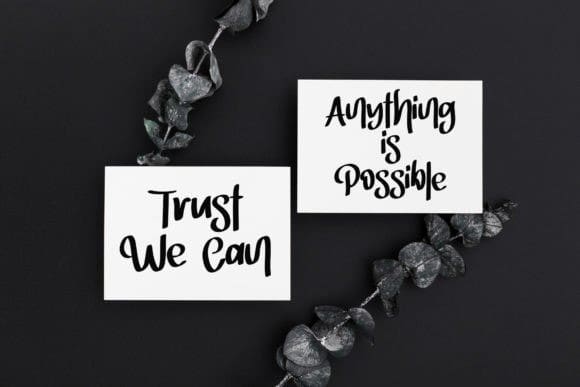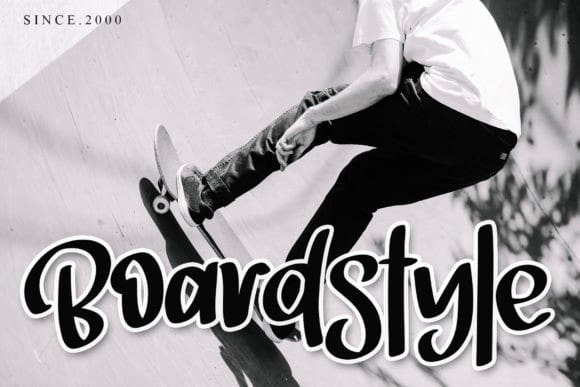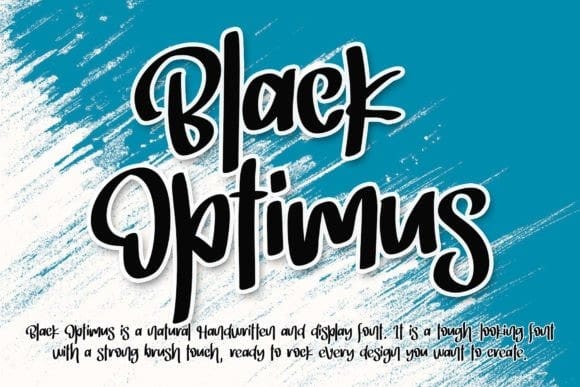
Black Optimus Font
Black Optimus Font is a natural handwritten font. It is a tough-looking font with a strong brush touch, ready to rock every design you want to create. It is perfect for logos, quotes, posters, clothing, and so much more! Add it to any of your creative projects, and be amazed by the generated outcome!